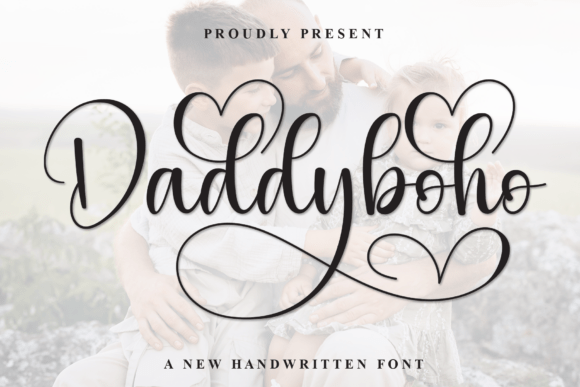
Give Your Designs a Heartfelt Touch with the Daddyboho Font
As a designer, you’ve probably found yourself staring at a blank canvas, trying to capture the essence of a precious moment. Maybe it’s a family gathering, a milestone birthday, or a quiet evening spent with loved ones. Whatever it is, you want to convey the warmth and love that fills your heart. That’s where the Daddyboho Font comes in – a beautiful, handwritten script font that celebrates the beauty of familial bonds.
This enchanting display typeface is perfect for adding a personal touch to your designs, whether it’s a family photography watermark, a heartfelt greeting card, or a custom nursery wall art. The Daddyboho Font delivers a sense of polished design intelligence and artisanal warmth, transforming digital titles into sentimental expressions of love. As a designer, you’ll appreciate the versatility and elegance of this font, making it a valuable addition to your creative toolkit.
Daddyboho Font Key Features
- Font Family: Daddyboho
- Unique Characteristics: Unique blend of bohemian and vintage styles, with intricate details and ornaments
Daddyboho Font Review
I recently had the chance to work with the Daddyboho font, and I must say it’s a unique addition to any design project. ✨
- One of the standout features of this font is its eclectic and bohemian vibe. It’s perfect for adding a touch of personality to your designs, especially when working with projects that require a free-spirited or vintage feel.
- The font’s irregularities and quirks add character to your text, making it stand out from more traditional fonts.
- The Daddyboho font is also incredibly versatile, working well in a variety of contexts, from digital to print.
However, there are a few limitations to consider ⚠️:
- The font’s irregularities can sometimes make it difficult to read, especially in smaller font sizes.
- The font may not be suitable for projects that require a lot of text, as the irregularities can be overwhelming.
Overall, I think the Daddyboho font is a great choice for designers who want to add a touch of personality to their projects. While it may not be the best choice for every project, it’s definitely worth considering when working with designs that require a unique and eclectic feel.
Daddyboho Font is ideal for creative projects, such as:
- Graphic design and branding
- Typography-based art and illustrations